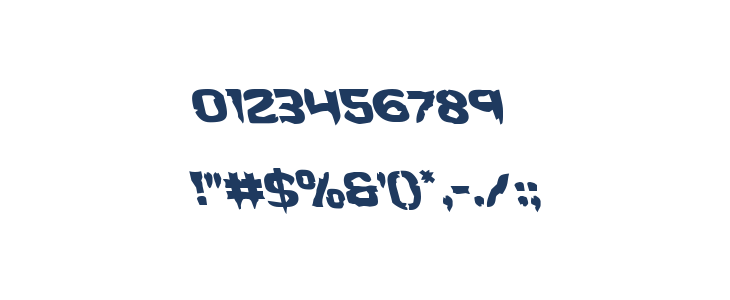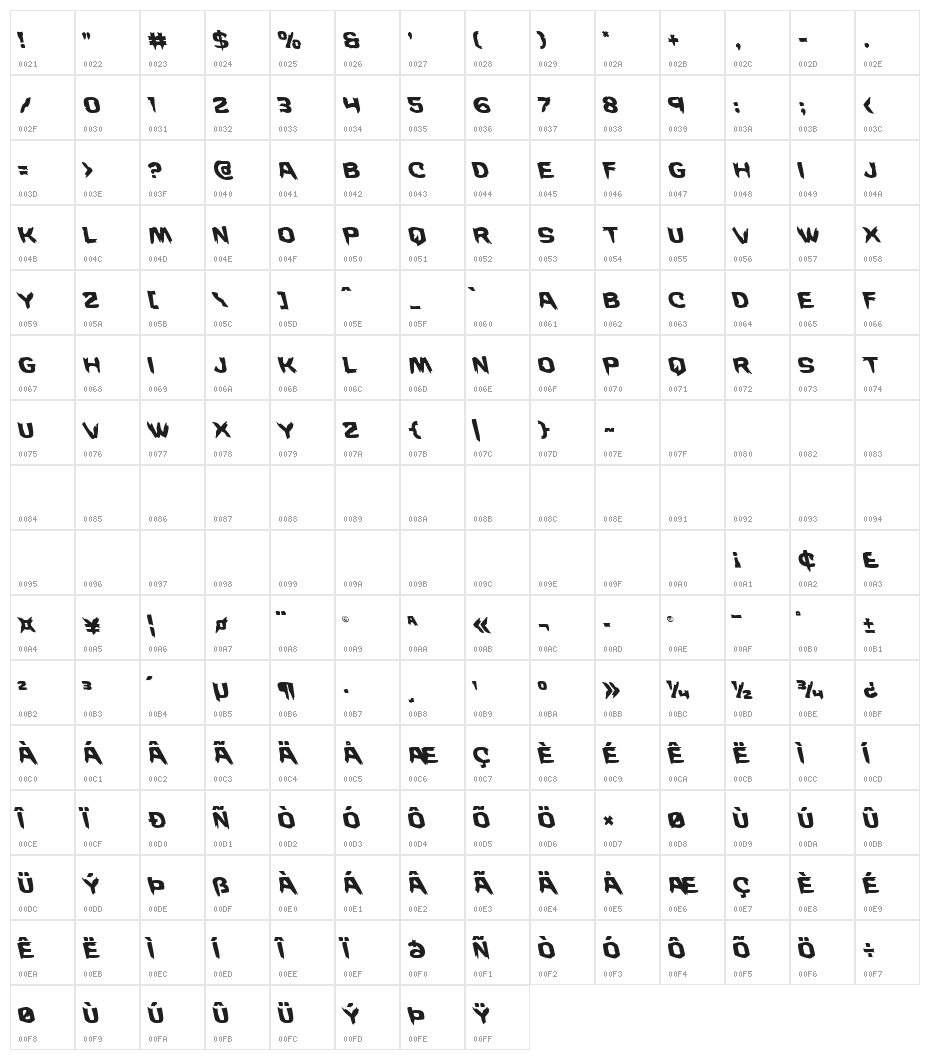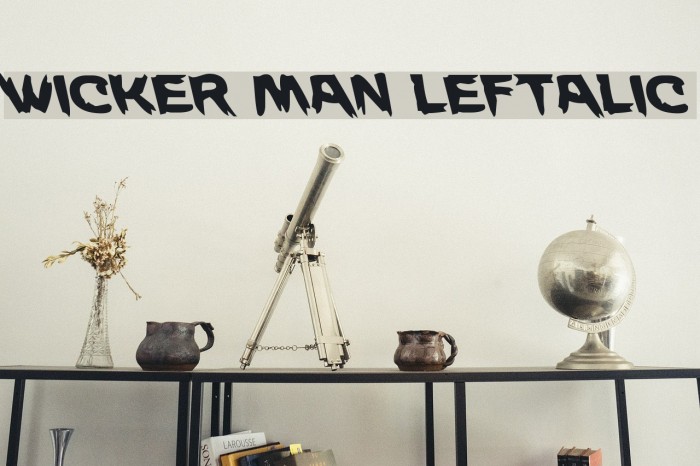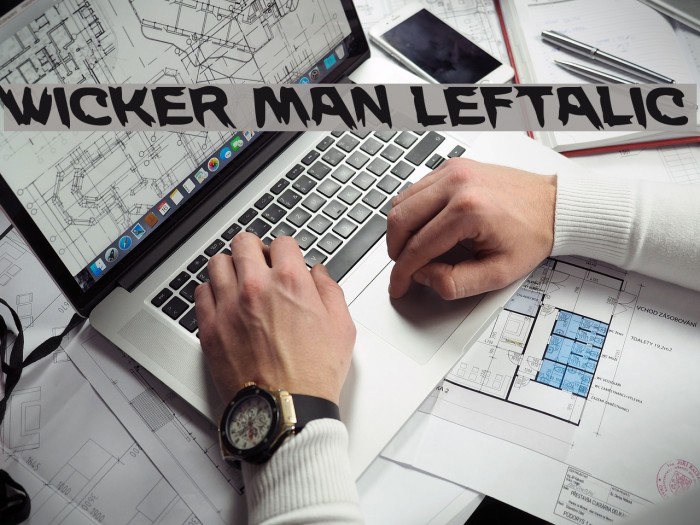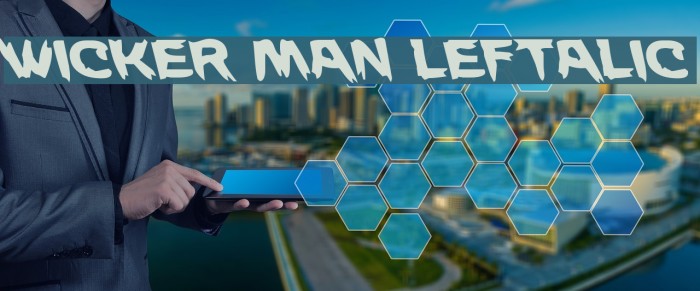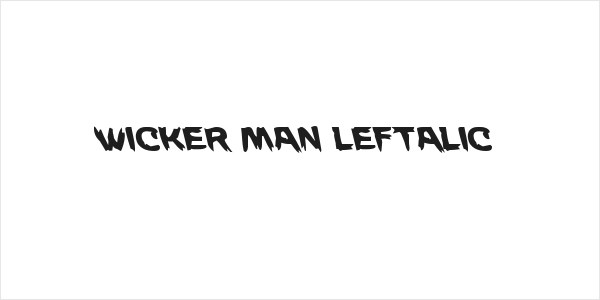
Wicker Man Leftalic Font
Wicker Man Leftalic Description
This font features a bold, jagged style with a distinct, edgy appearance. The characters have sharp, angular cuts and a slightly irregular form, giving them a dynamic and aggressive look. The uppercase and lowercase letters maintain a consistent style, with the uppercase being more pronounced. Numbers and special characters follow the same design ethos, ensuring a cohesive appearance across all glyphs. This font is particularly striking and commands attention, making it ideal for impactful designs.
| Proposed Projects | Ideal for horror-themed posters, edgy branding, video game titles, and music album covers. |